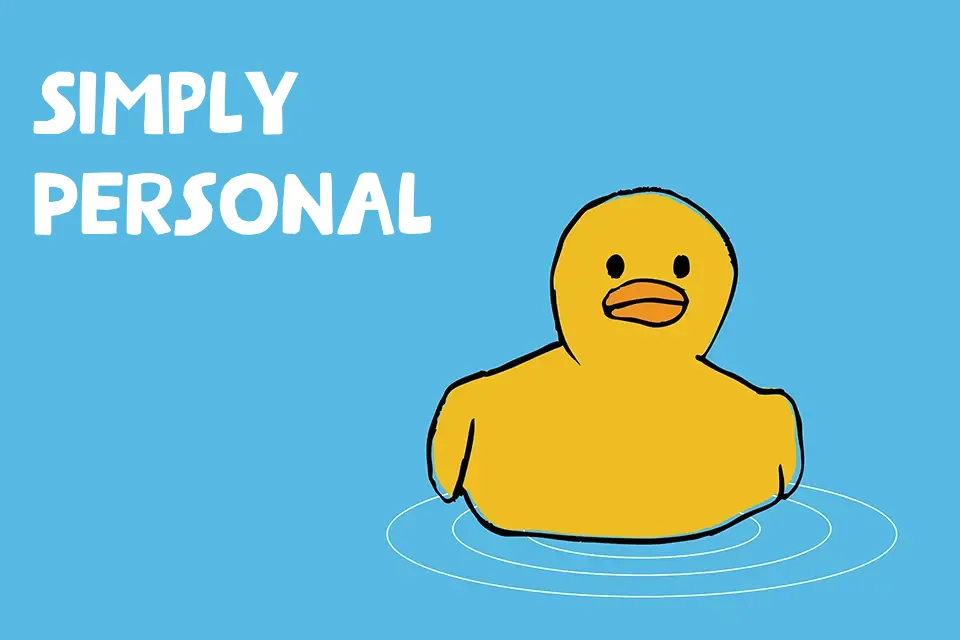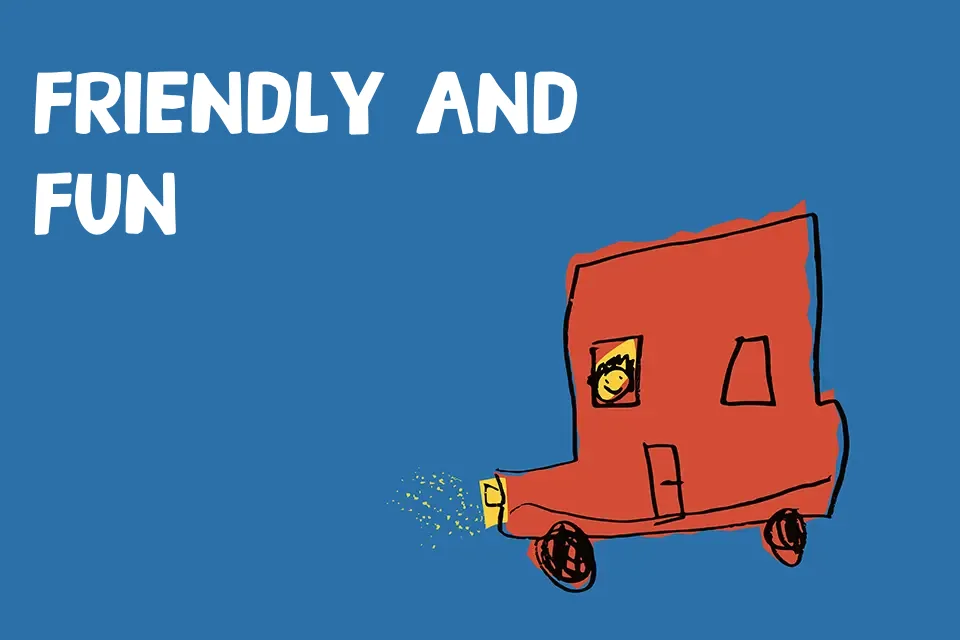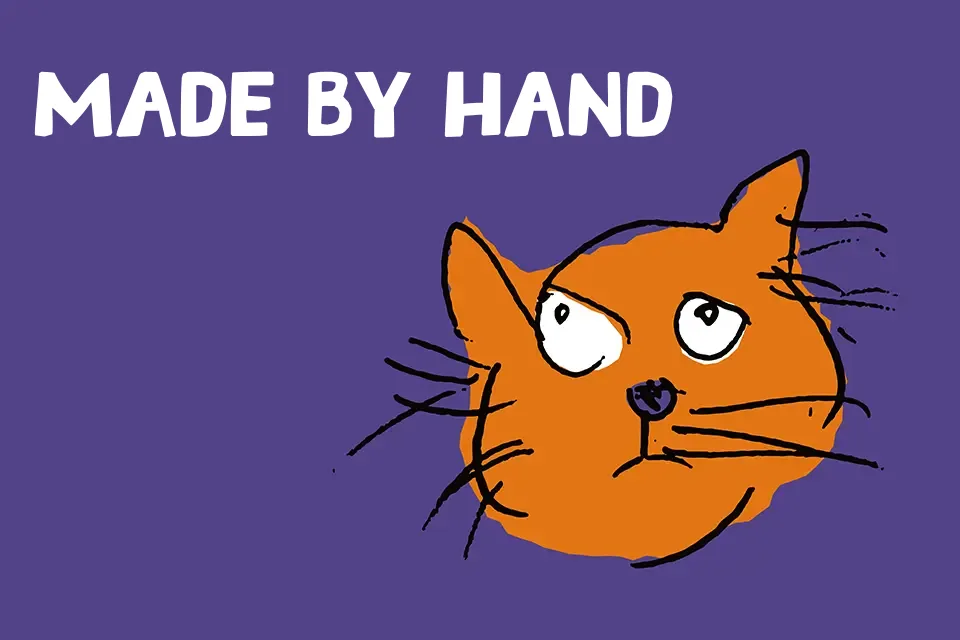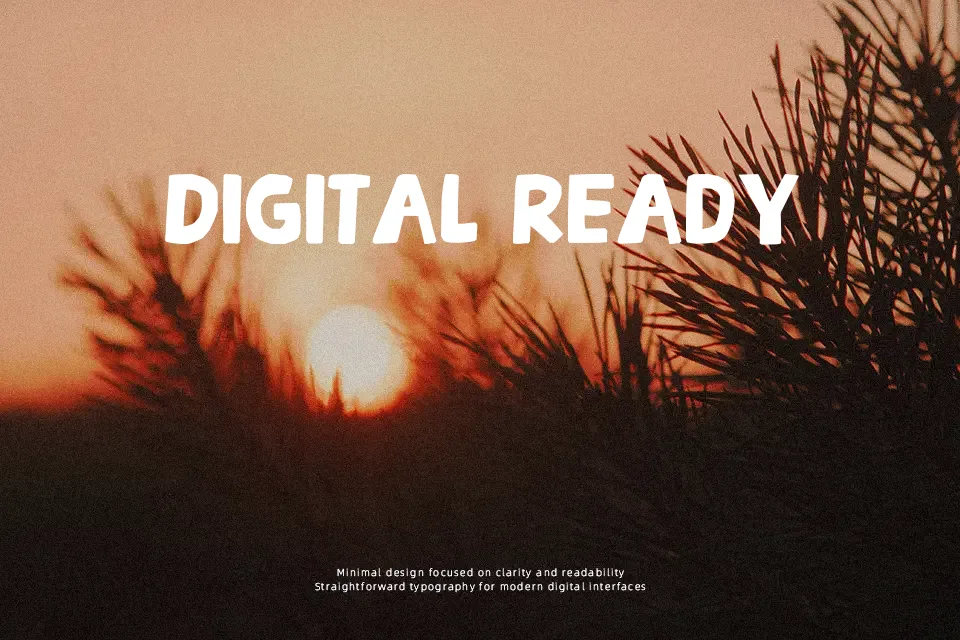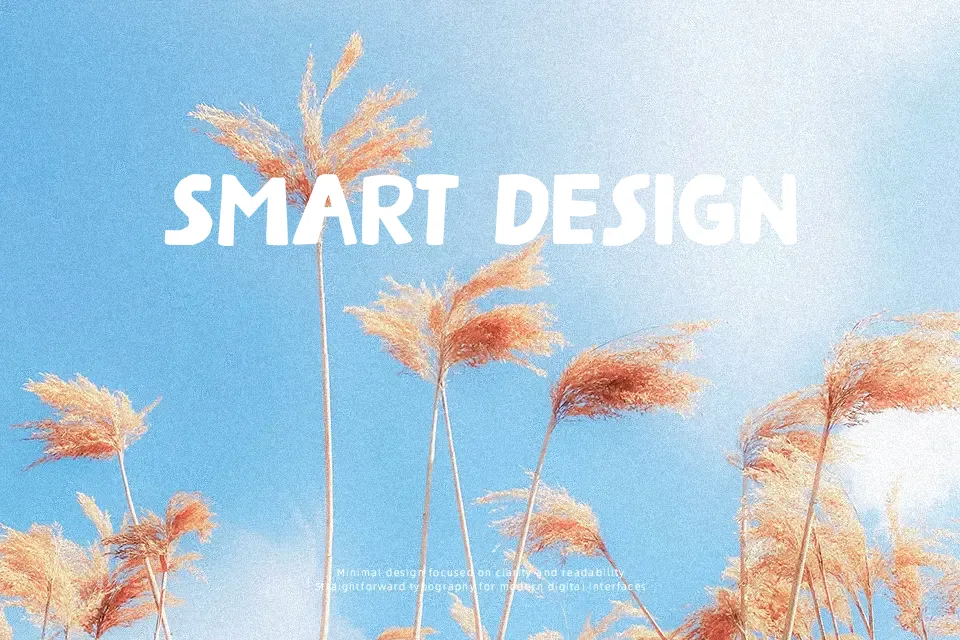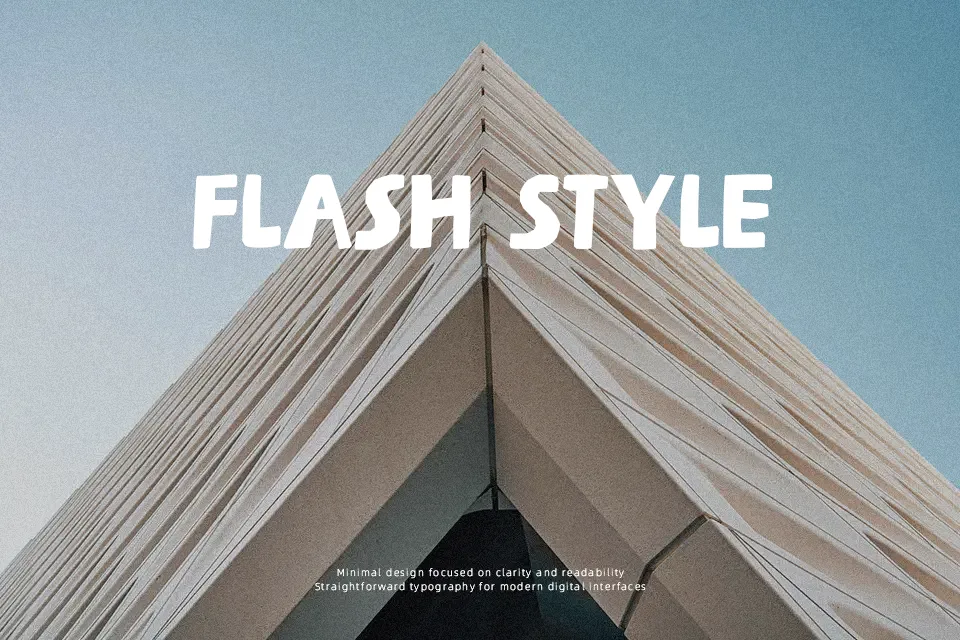
Steaming Noodles Font
Steaming Noodles Font features lively, hand-drawn letterforms defined by gentle stroke contrast, soft terminals, and animated contours. The typeface maintains slightly loose spacing and generous internal counters, helping each character stand out crisply across medium and large headlines. Its casual proportions bring warmth and spontaneity to restaurant menus, packaging labels, merchandise, and poster designs. However, the uneven baseline rhythm and stylized glyph silhouettes reduce reading comfort when set in continuous multi-line paragraphs. The loose character spacing preserves legibility effectively in display headings, though small caption sizes may lose fine contour definition.
Best For: restaurant menu headers, casual snack packaging, animated title cards, food festival posters
Not Ideal For: dense editorial paragraphs, technical documentation, corporate legal agreements, mobile system UI text
Perfect for headline, kids, and packaging, with a creative and comic style.